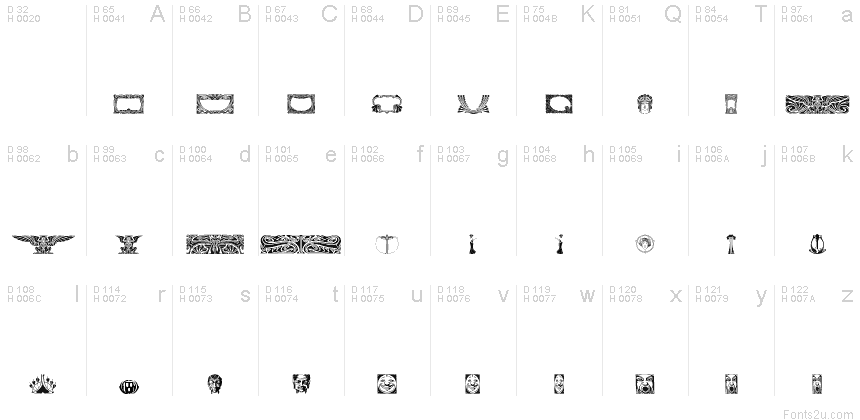
Art Noveau Headers
Art Noveau Headers font by Listemageren is a free fantastic dingbat typeface that turns single keystrokes into lush Art Nouveau ornaments and theatrical faces. Each glyph feels like an inky woodcut: swooping floral frames, bold medallions, and expressive moonlike portraits that instantly anchor a layout. Drop one of these icons at the top of a page and it behaves like a miniature poster—dense, black, and full of swirling detail.
This free font shines on chapter openers, vintage-style posters, tarot or zine layouts, boutique packaging, menus, and ticket designs where you need a strong, ornamental header block. Using Art Noveau Headers, let the dingbat mark the start or end of a section, then pair it with a clean, quiet sans serif at smaller sizes so the illustrations stay center stage.